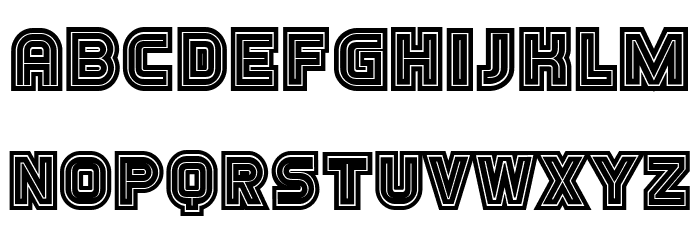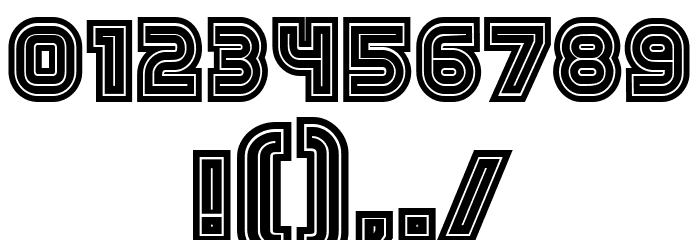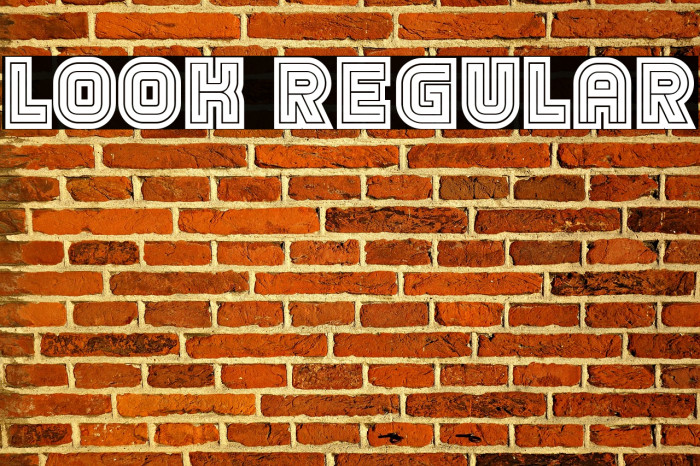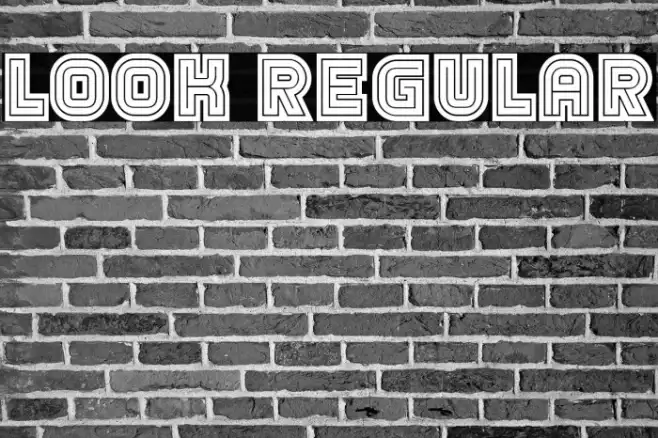
Look Regular Font
This font features a bold, geometric design with a distinct outline style that gives it a three-dimensional appearance. The characters are constructed with clean, straight lines and sharp angles, creating a modern and dynamic look. The uppercase and lowercase letters maintain a consistent style, with the uppercase being slightly more pronounced. The numbers and special characters follow the same design principles, ensuring uniformity across all glyphs. This font's unique outline effect makes it stand out, making it ideal for eye-catching designs.
A bold, geometric font with a three-dimensional outline style.
- Proposed Projects: Ideal for posters, headlines, logos, and branding materials where a striking and modern appearance is desired.